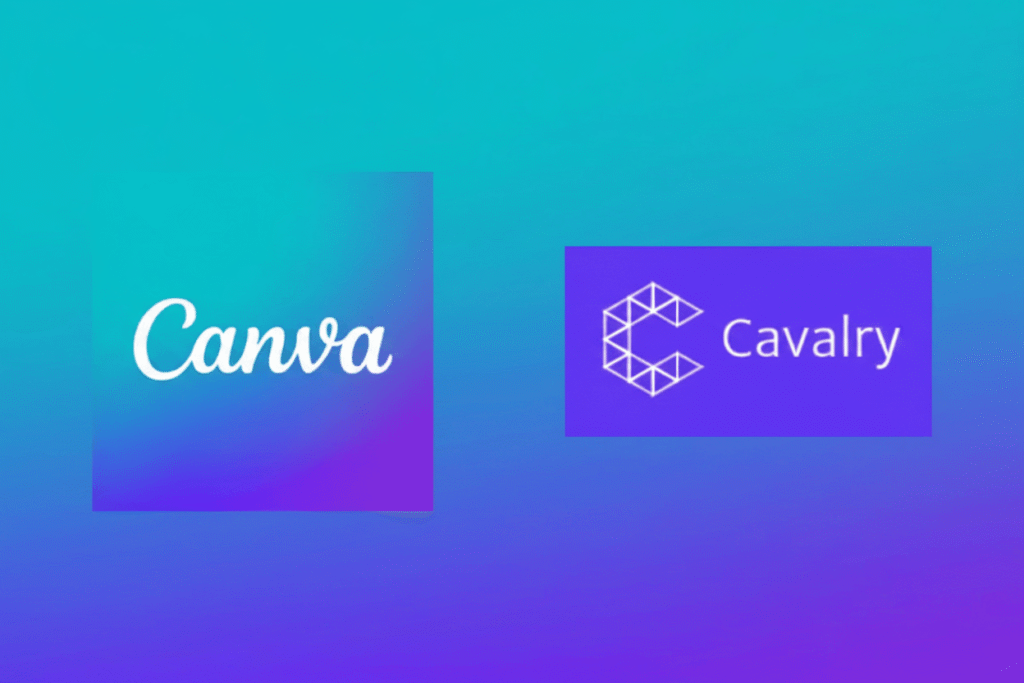
Canva x Cavalry 2026: The Future of Procedural Animation for Designers
The creative industry has just witnessed its most significant tectonic shift of the decade. In a move that few saw coming but everyone in the high-end design space feared, Canva has officially integrated Cavalry’s procedural engine into its ecosystem. For the average user, this sounds like just another feature update. But for the professional designer, this is a declaration of war against the mundane. At TypeTasty, we have always championed the “Subjective Advantage”—the idea that design should feel human, imperfect, and soul-filled. By bringing Cavalry, the gold standard for 2D procedural animation, into the accessible world of Canva, the barrier between “complex motion” and “high-speed delivery” has finally collapsed.
1. What is Procedural Animation? (The New Industry Standard)
To understand why this collaboration is “gacor” (mind-blowing), we first have to understand the technology. Traditional animation relies on Keyframes—the manual process of setting a start point and an end point. It is tedious, linear, and often results in robotic movement.
Procedural Animation is different. It is driven by rules, physics, and mathematical relationships. Instead of moving a circle across the screen, you tell the system: “This circle should react to the beat of the music, and if it touches the text, it should ripple like water.” With Cavalry’s engine now live inside Canva, these “smart movements” are no longer reserved for elite motion agencies using expensive workstations. They are now available to every freelancer with a browser.
2. Typography in Motion: Breathing Life into the Organic Serif
The biggest beneficiary of this collaboration is Typography. At TypeTasty, our signature Organic Serifs thrive on personality. Before 2026, making a serif font look like it was being “inked” in real-time required hours of After Effects masking.
Now, with the Canva x Cavalry integration:
- Real-Time Ink Flow: You can apply procedural “strokes” that make your headers look like they are being hand-painted as the user scrolls.
- Variable Weight Reactivity: Imagine a headline that becomes bolder as the user hovers over a CTA. This creates an intuitive, “living” hierarchy.
- Physics-Based Lettering: Letters can now have “weight.” They can bounce, collide, and settle with a natural physics that feels human, not digital.
3. The Rise of ‘Subjective Motion’
In our previous discussions, we talked about Subjective UI—design that prioritizes emotion over utility. Static Subjective UI is great, but Subjective Motion is better.
2026 is the year of the “Vibe.” Clients don’t just want a website that works; they want a website that feels like their brand. If you are designing for a luxury spa, your motion should be slow, procedural, and fluid (like liquid silk). If you are designing for a tech disruptor, it should be sharp, glitchy, and reactive. Canva x Cavalry allows you to build these “motion behaviors” once and apply them to an entire brand system instantly.
4. Scaling Your Business with High-Ticket Motion Branding
If you are a freelancer, this is your signal to stop selling “logos” and start selling “Motion Identities.” A static logo is a commodity. A procedural motion identity that works across TikTok, Web, and Digital Billboards is a high-ticket asset. The “Gacor” Pitch: “I don’t just design your logo; I design the way your brand breathes. Using my custom TypeTasty font system and procedural motion, your brand will react to your customers in real-time.”
Because Canva makes the execution fast, your profit margins will skyrocket. You are charging for the “Cavalry-level” expertise but delivering with “Canva-level” speed.
5. The “No-Code” Motion Revolution
For years, Cavalry was seen as “the motion tool for people who like math.” It was powerful but intimidating. Canva’s genius lies in its User Interface. They have taken the complex “nodes” and “behaviours” of Cavalry and turned them into intuitive, visual controls.
This is the democratization of elite motion. In 2026, the winner isn’t the person who knows the most keyboard shortcuts; it’s the person with the best Taste. When the technical barrier is removed, your “Subjective Eye” becomes your only competitive advantage.
6. Breaking the Grid: Liquid Layouts in 2026
We’ve moved past the rigid boxes of the 2010s. With procedural animation, layouts can finally be Liquid. Elements can shift and flow based on the screen size or user interaction without breaking the design.
This is where the TypeTasty “Organic Doodle” aesthetic truly shines. Imagine hand-drawn doodles that actually “draw” themselves around your content as the user explores the page. This level of interactivity creates a “Dopamine Hit” that keeps users on the site longer, significantly boosting SEO dwell time.
7. The Ethical Shift: Human Design in an AI World
There is a growing fatigue with “AI-perfect” animation. You’ve seen it—the weird, uncanny valley movement of AI videos. Procedural animation is different. It is Human-Guided Math. It allows for intentional “imperfections” that feel artisanal.
10. Conclusion: The Soul is in the Movement
The Canva x Cavalry collaboration is the most exciting thing to happen to design in 2026. It proves that the future isn’t just about “static pixels”; it’s about living systems. At TypeTasty, we are committed to providing the best typographic foundation for this new era. Our fonts aren’t just shapes; they are the “actors” in your procedural stories. Embrace the motion. Break the grid. And most importantly, stay subjective.
The future of design isn’t just fast; it’s alive.